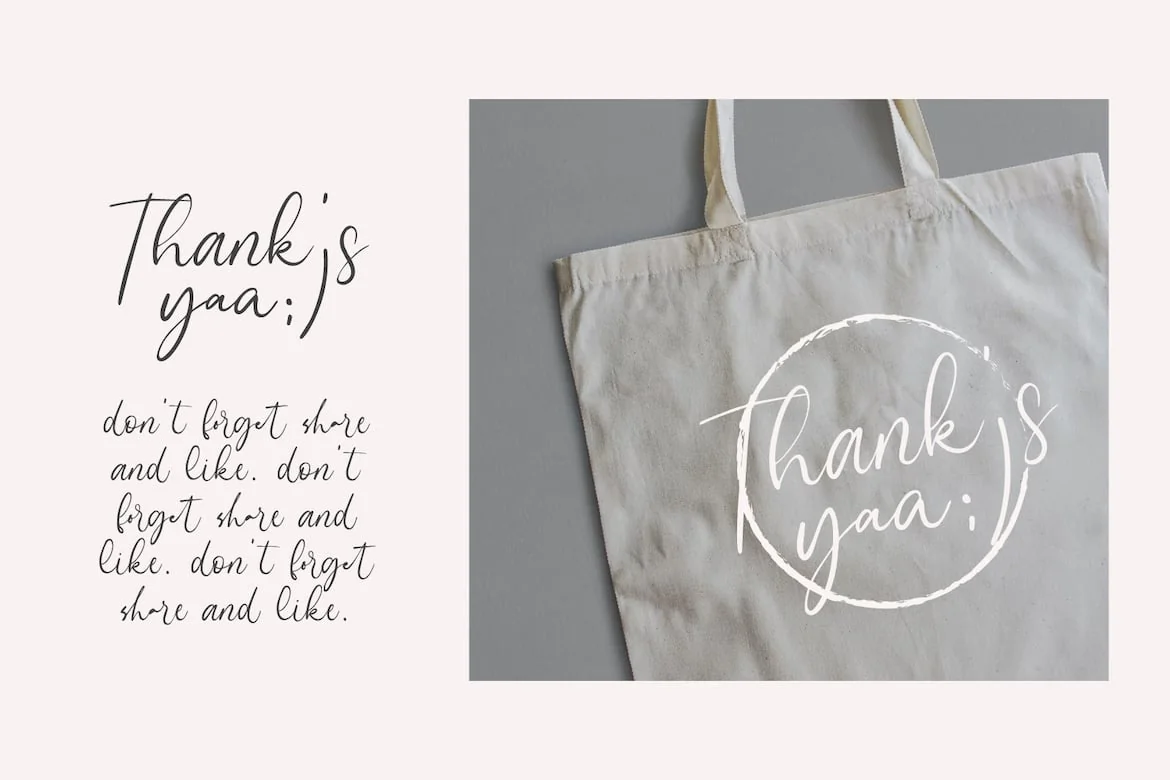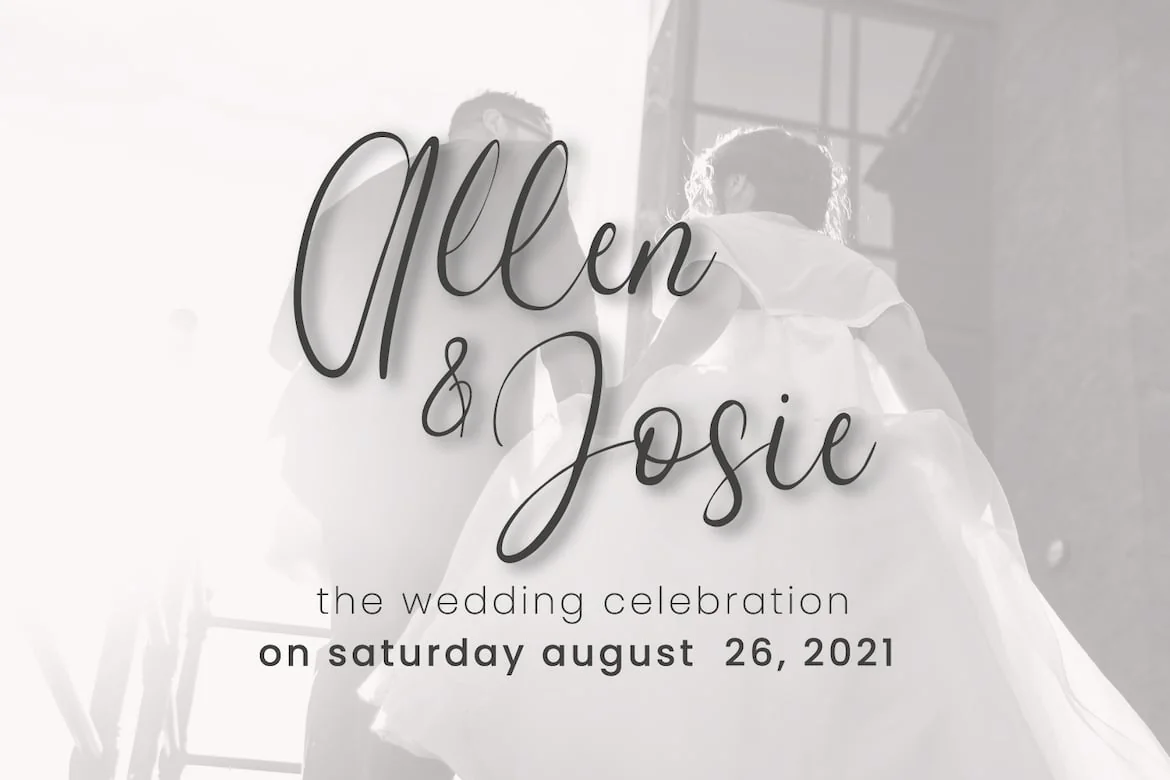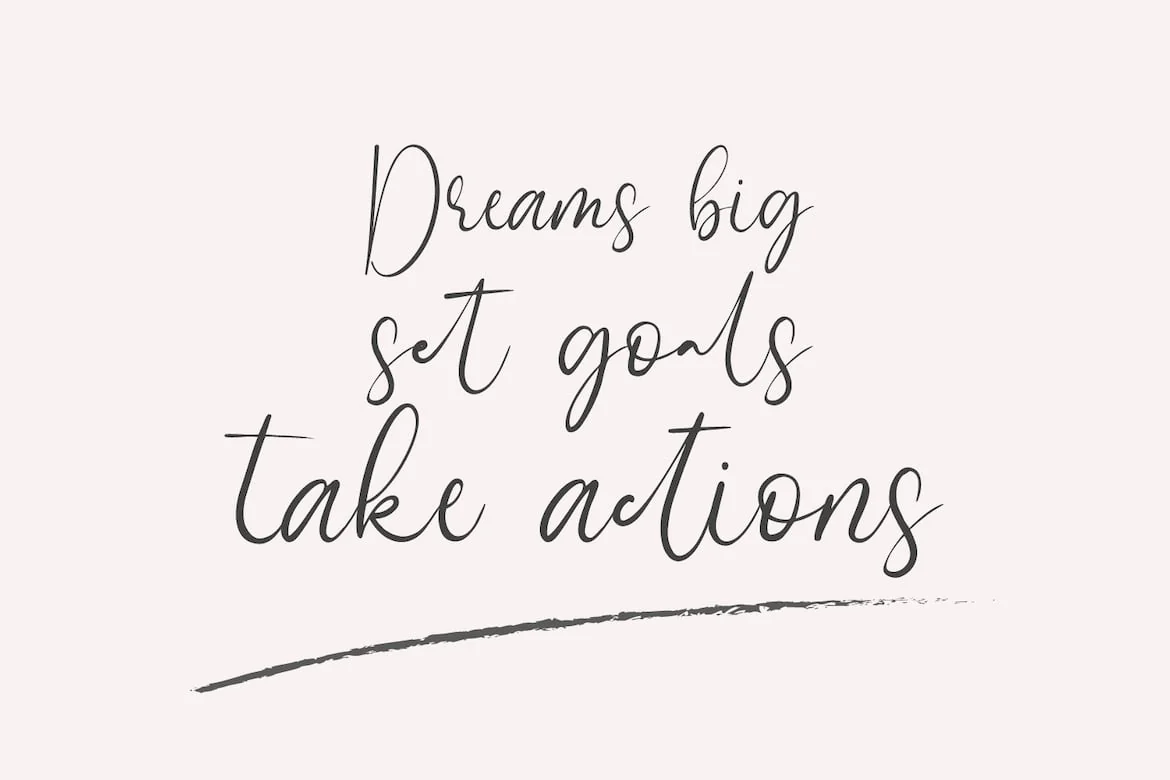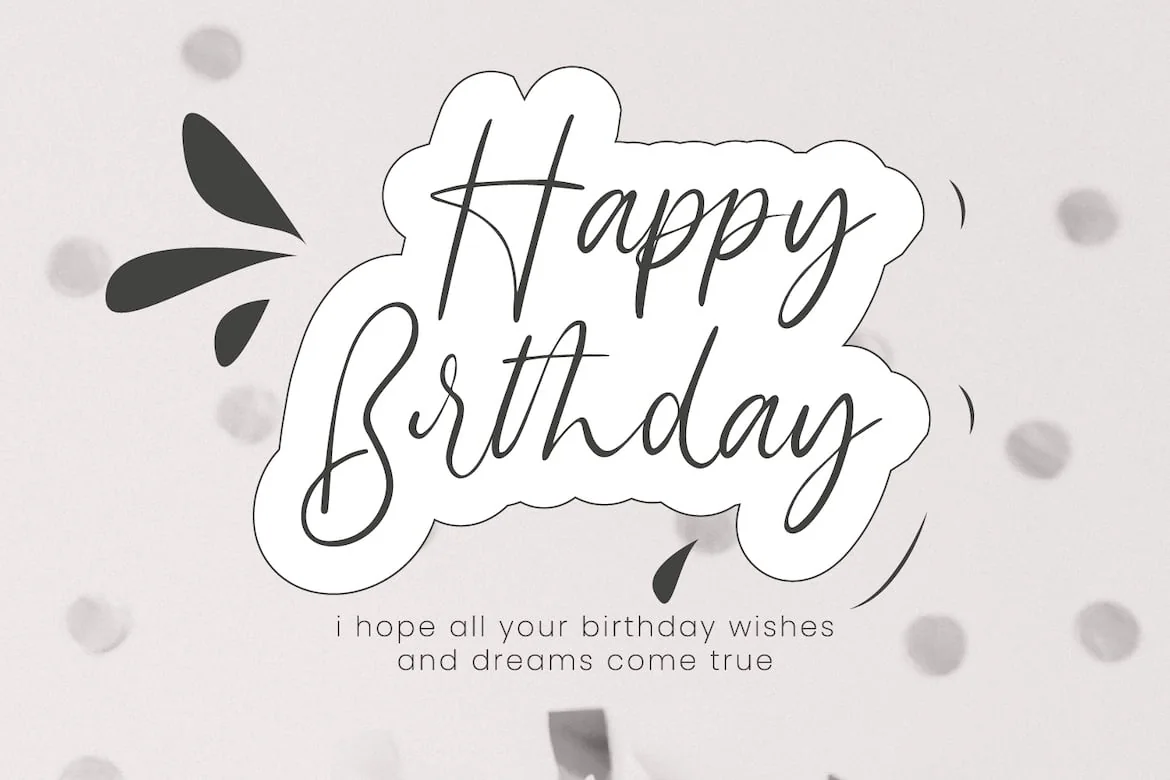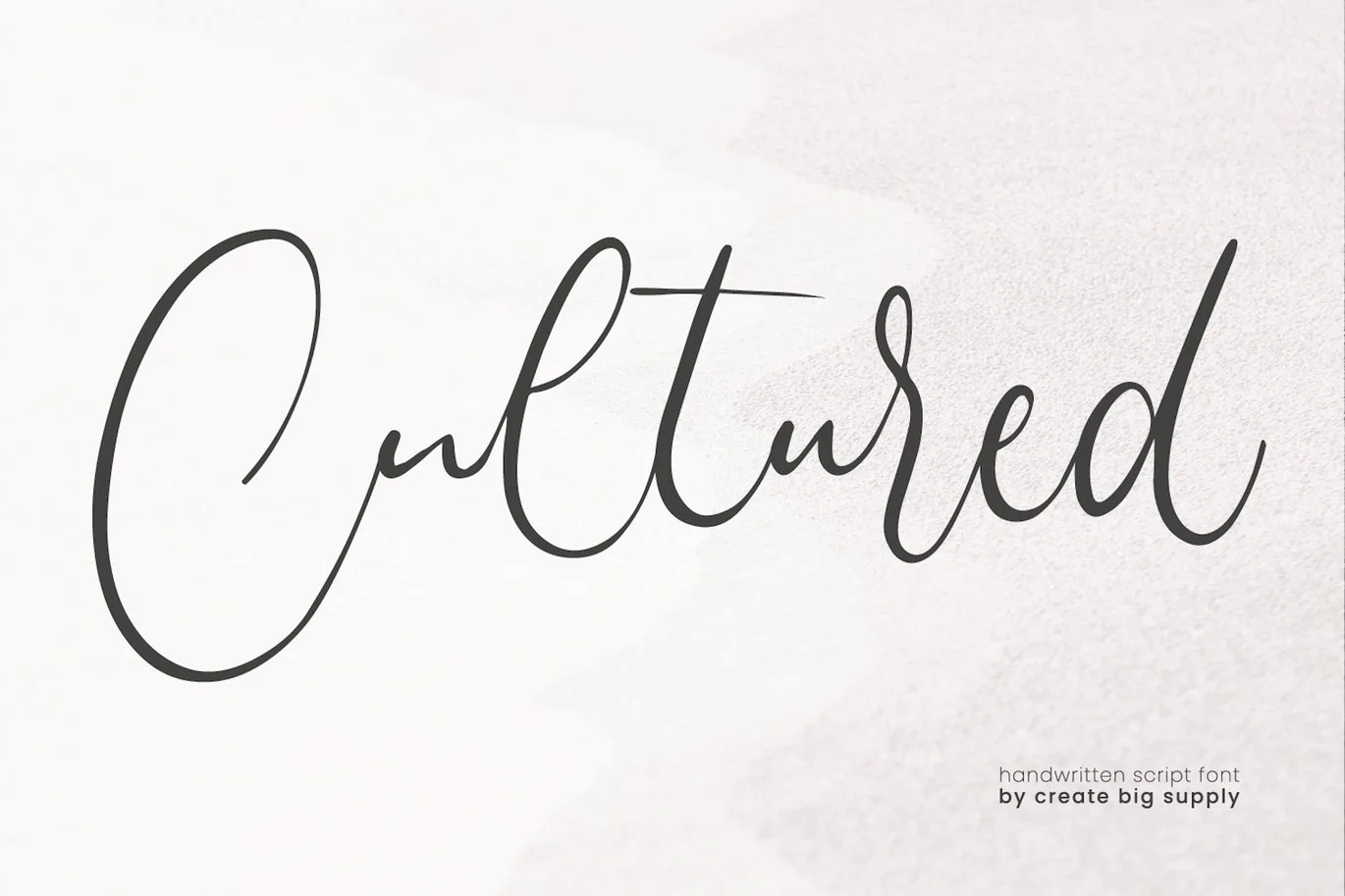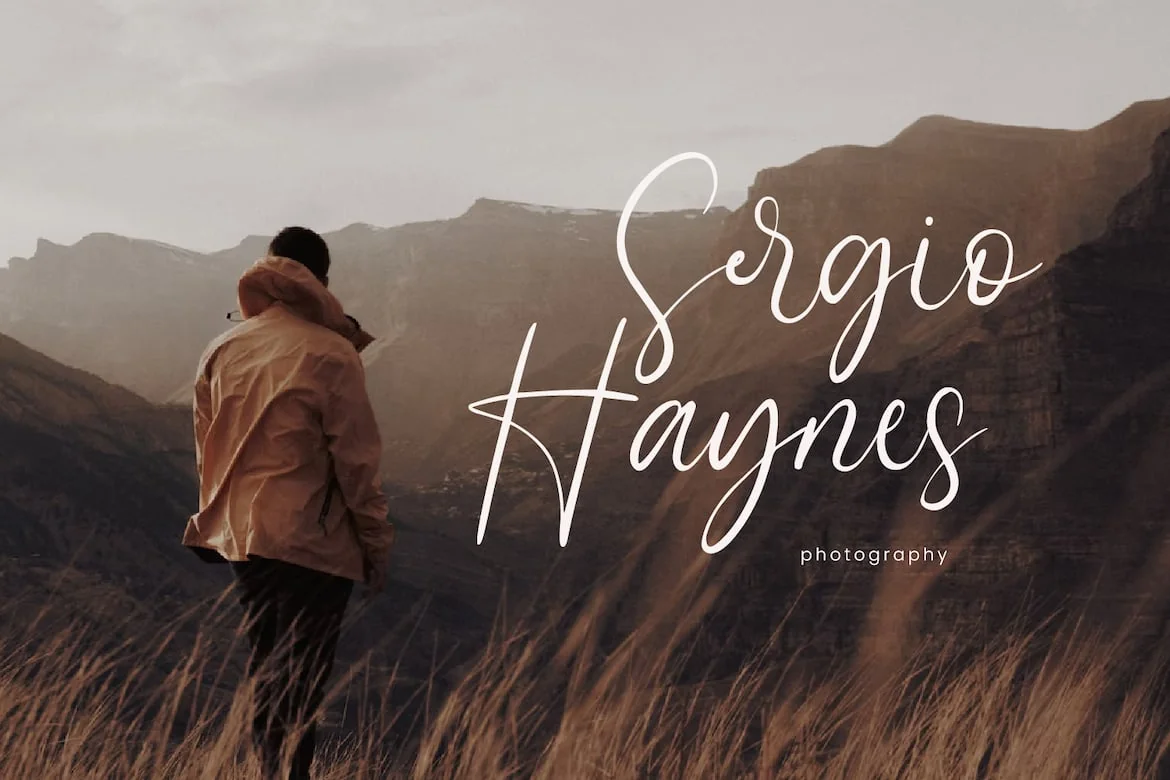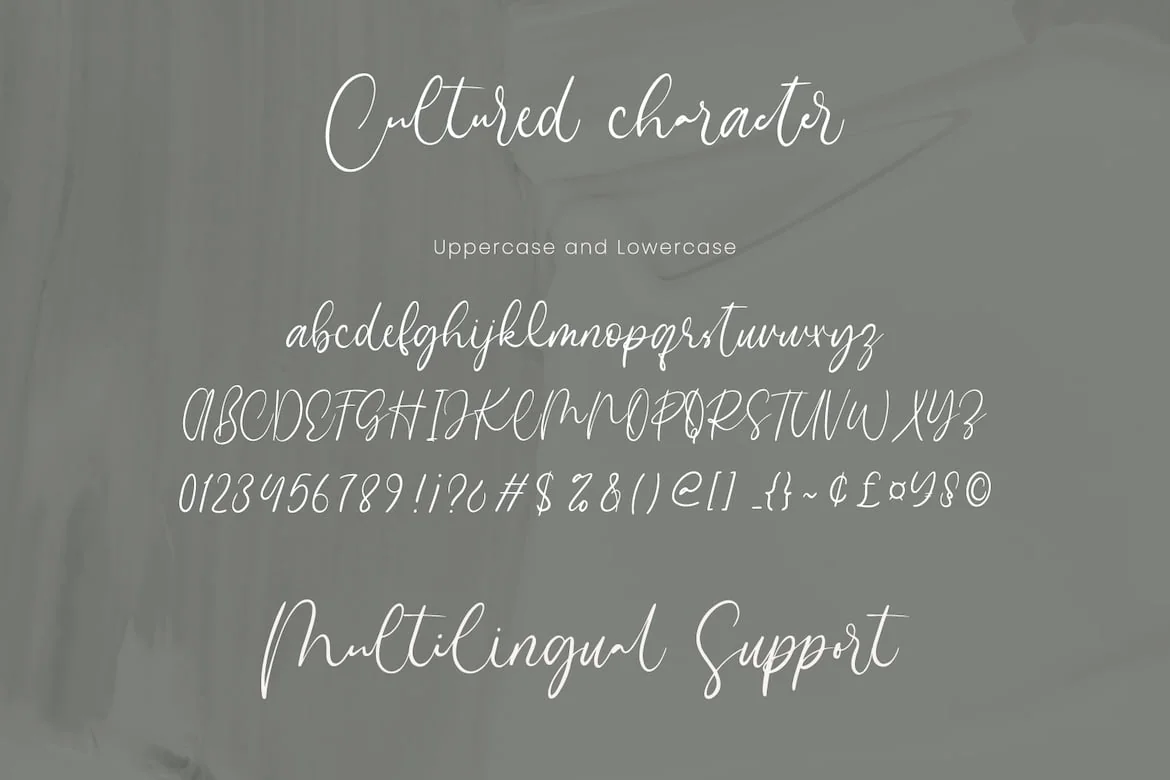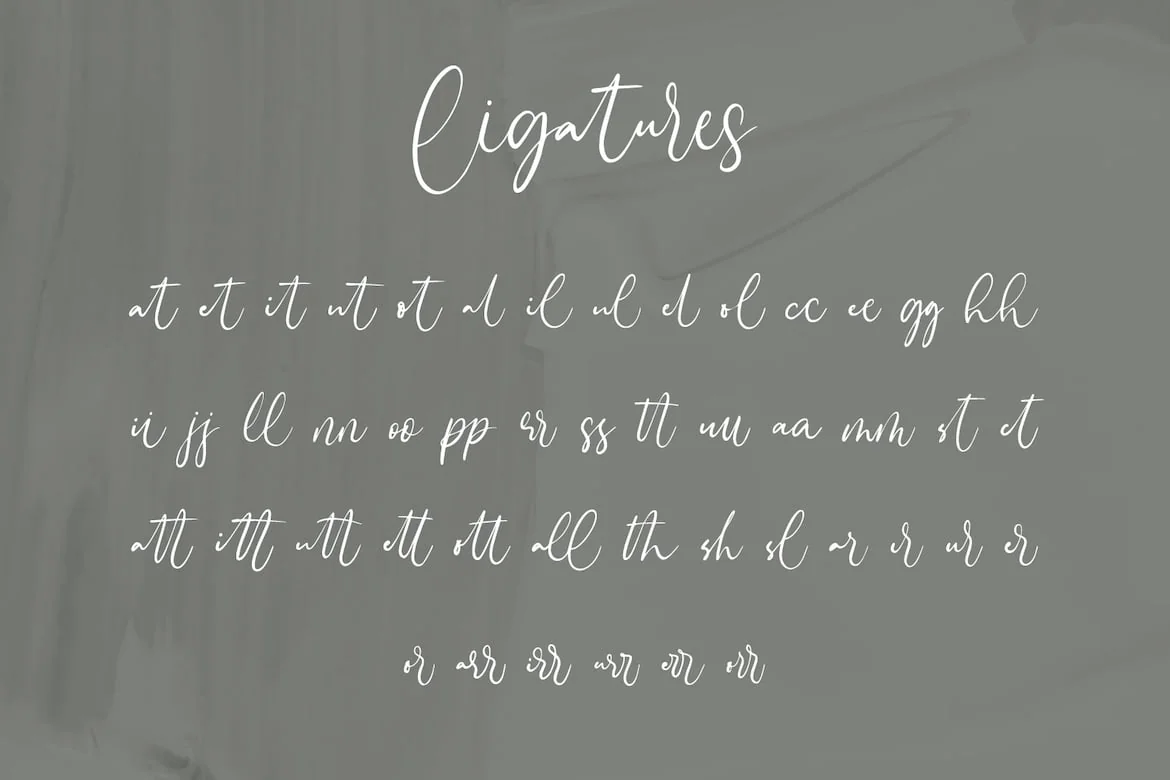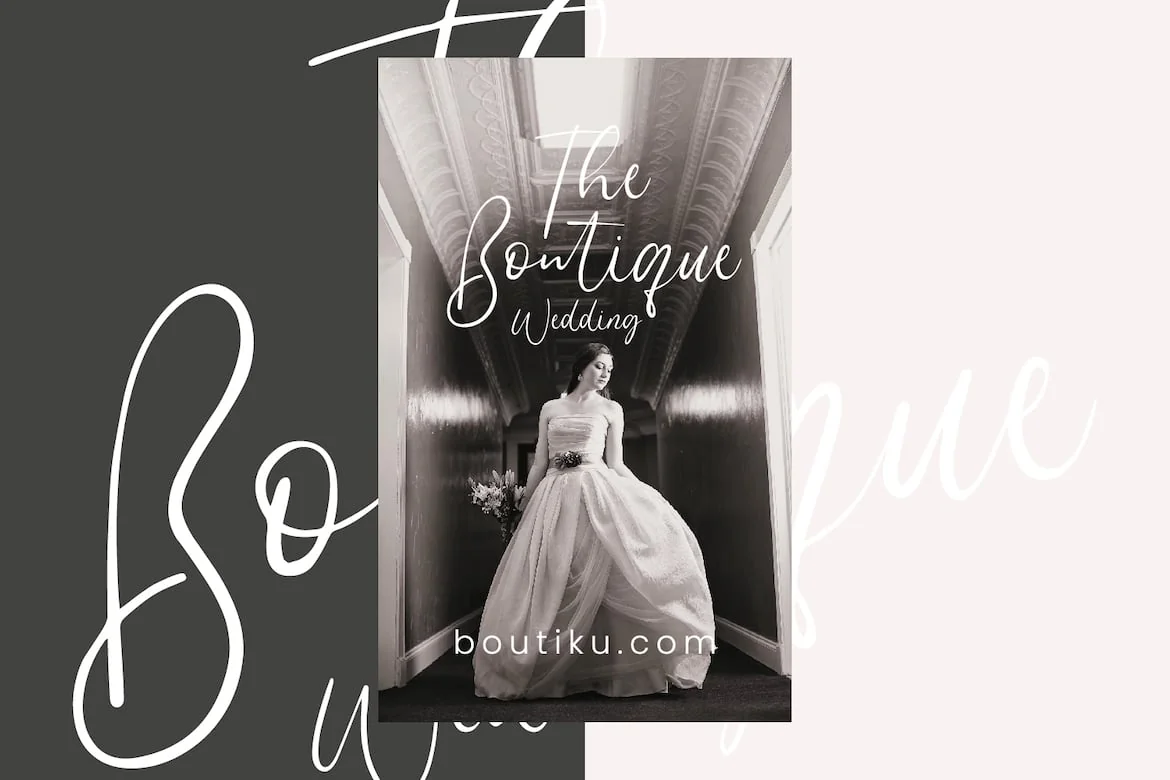
Cultured Handwriting Font
Cultured is a Handwriting font with multiple ligatures which gives it a natural feel and looks like real handwriting. Be mesmerized by its beautiful style and use it to create beautiful wedding invitations, beautiful stationary art, eye-catching social media posts and more! This font is PUA encoded which means you can access all the amazing glyphs and ligatures easily
Uppercase & lowercase
Numbers and punctuation
Ligatures
PUA Encoding
Full Character Set: